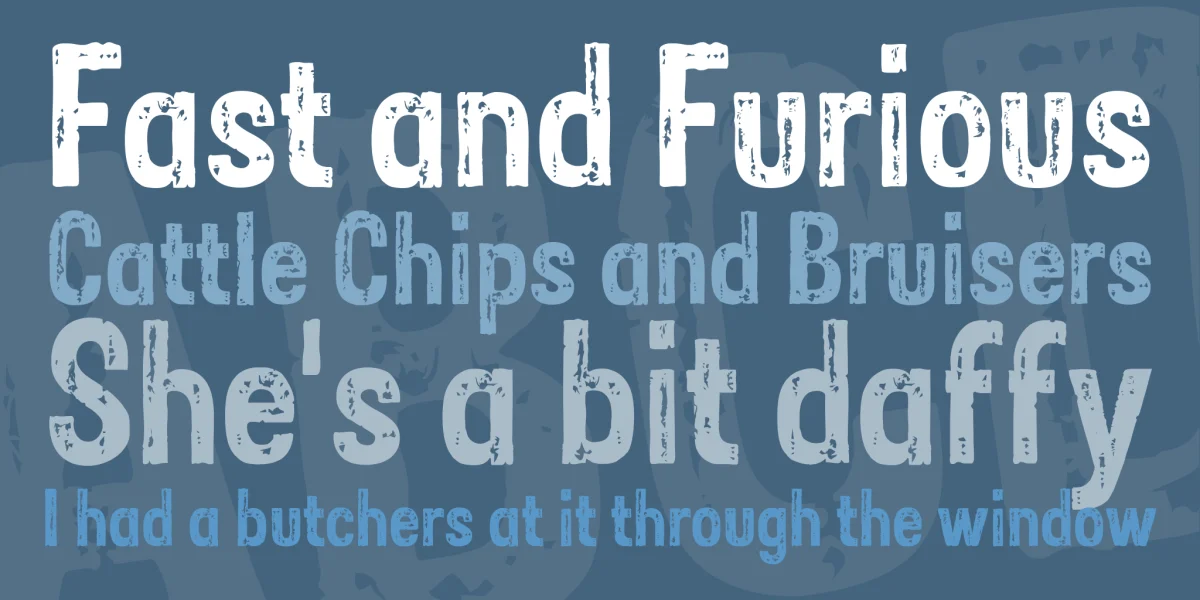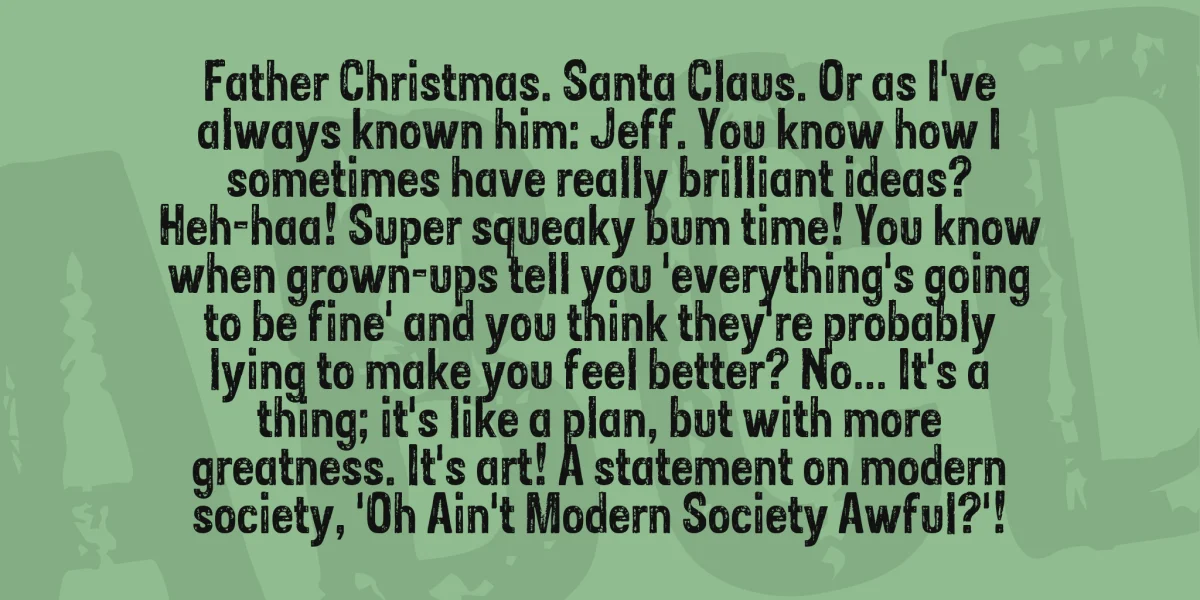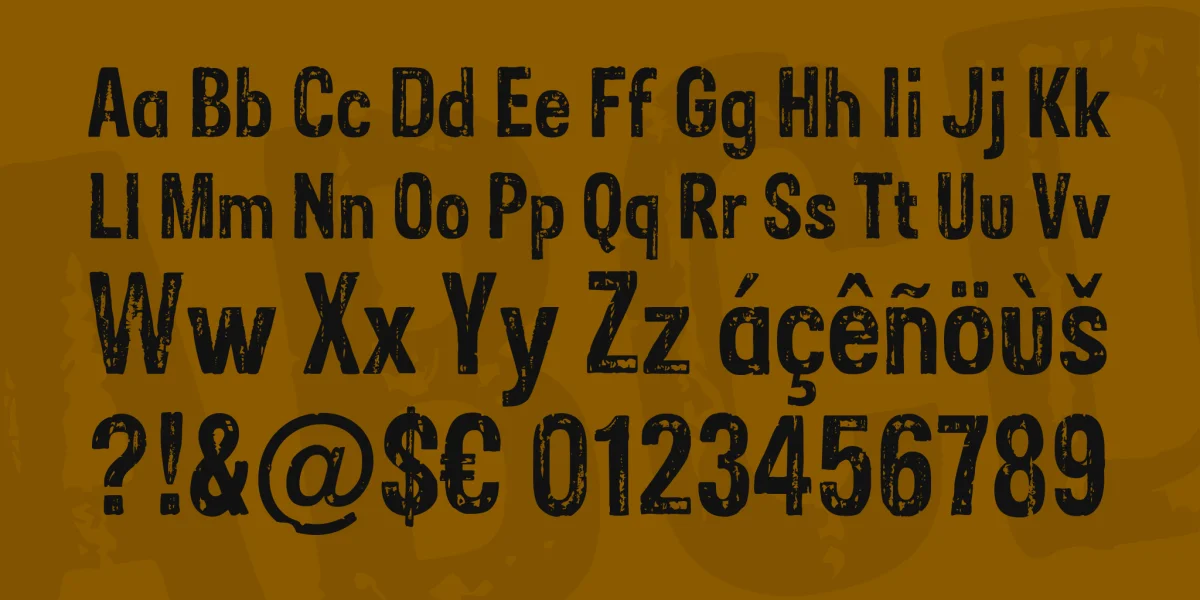
A misprinted sans serif loosely based on Phillip Cavette's 1999 font 4990810, but with re-drawn outlines, more distress marks, a neater vertical aspect and no baseline irregularity. Unlike its inspiration, Sans Culottes is a complete font which includes a lower case, accented characters and as many dingbats as you can shake a stick at.